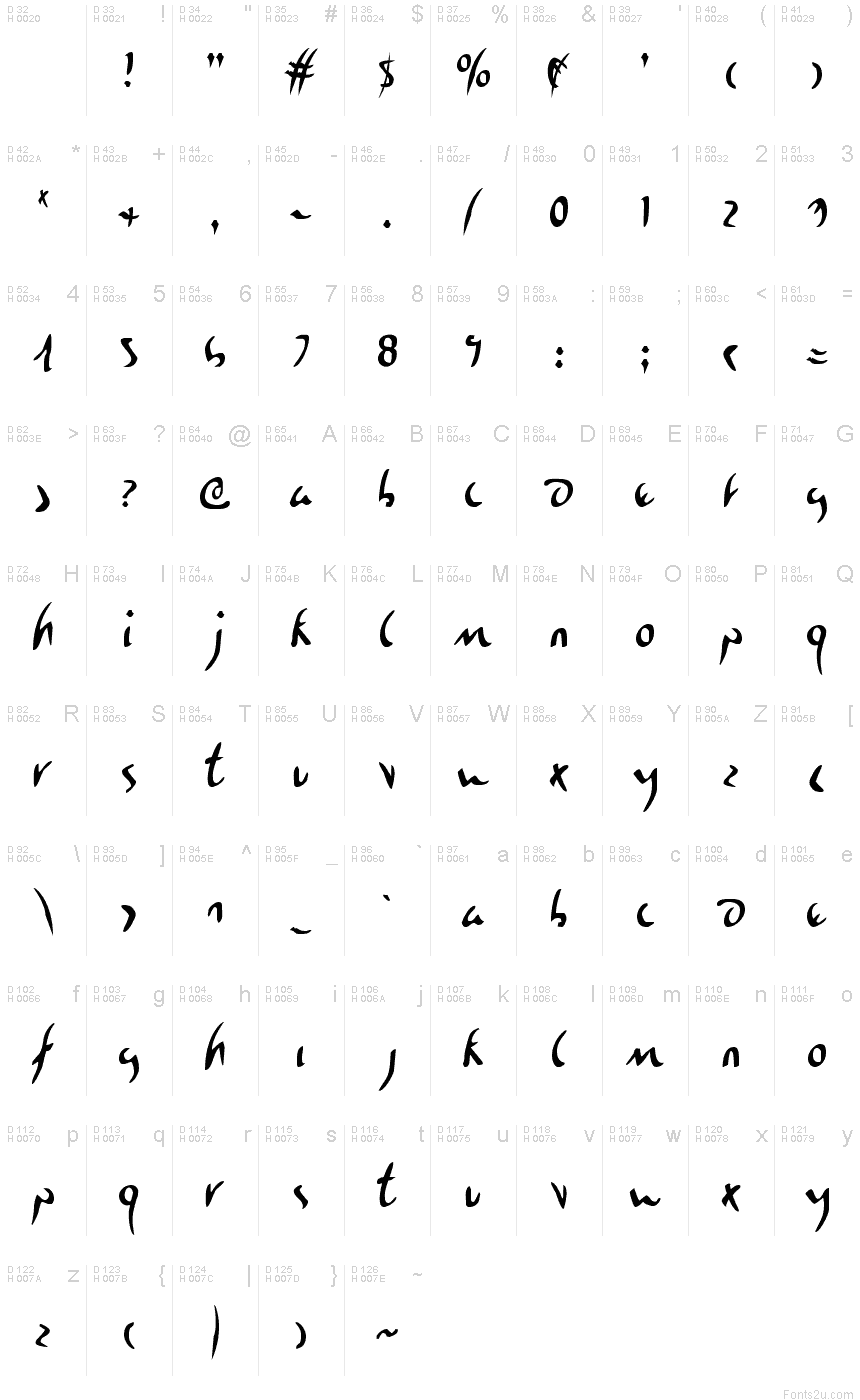
Eagleclaw Condensed by Daniel Zadorozny of Iconian Fonts is a free brush calligraphy font with tightly drawn, sweeping letters and sharply hooked ends. Broad sweeps narrow abruptly into pointed, hooked cuts.
Action fantasy and hard rock provide the clearest setting for this lettering, which suits game titles, music artwork, and event posters with a hand-painted, aggressive edge. On apparel and illustrated packaging, the repeated claw-like tips can echo talons, flames, or fast gestural marks, so the words become part of the artwork rather than a plainly printed neutral product label.
Eagleclaw Condensed